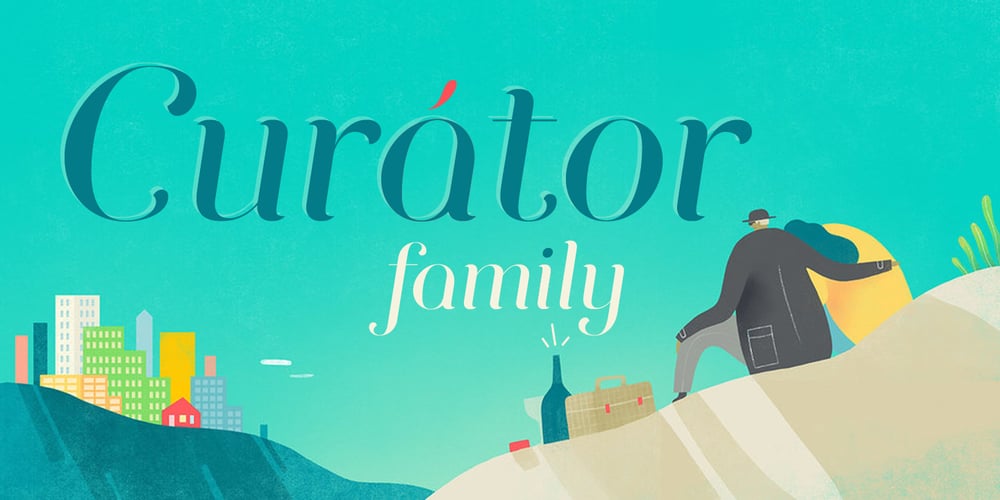
Curator
Curator font
Curator Font Family was designed by Alex Etewut and published by Etewut. Curator contains 11 styles and family package options. Curator family is serif based fonts that has multi language support including all european and basic cyrillic letters. It has bold and italic styles. You may choose letters in glyph panel, because each font has alternative symbols and ligatures.